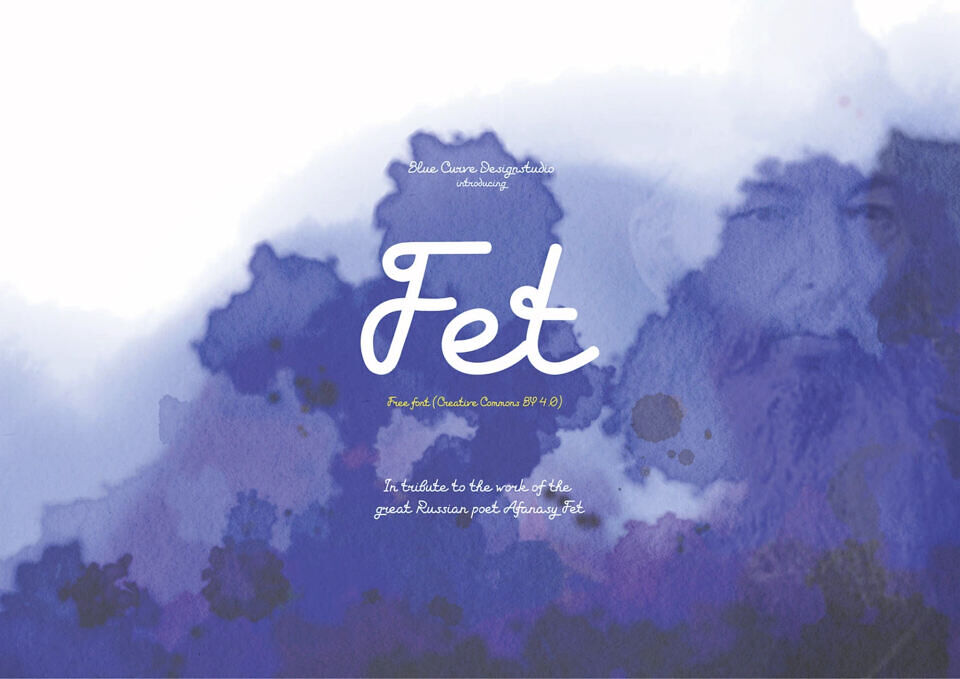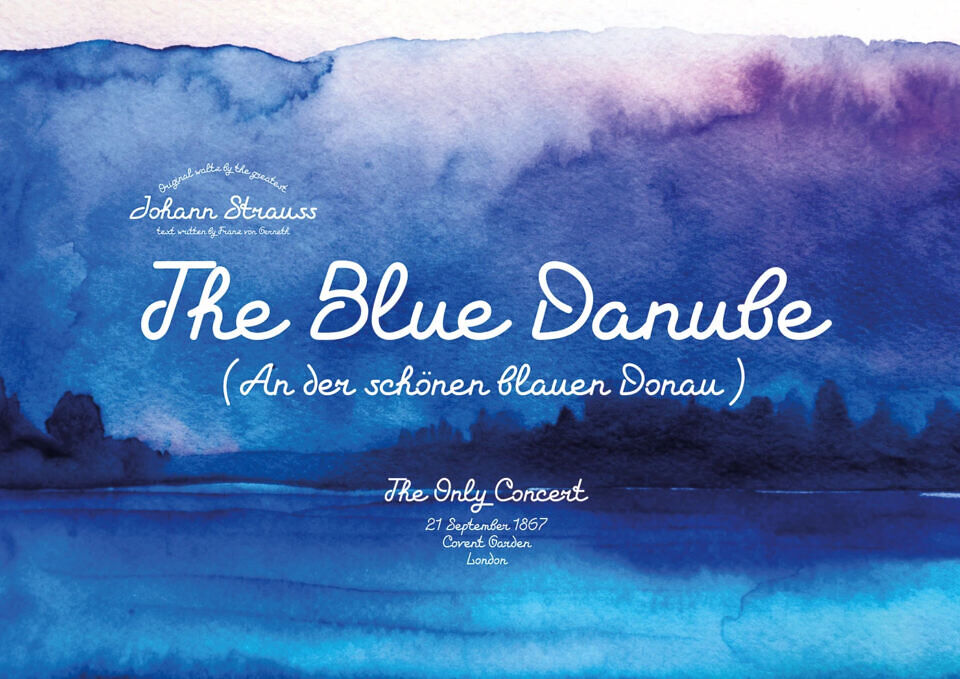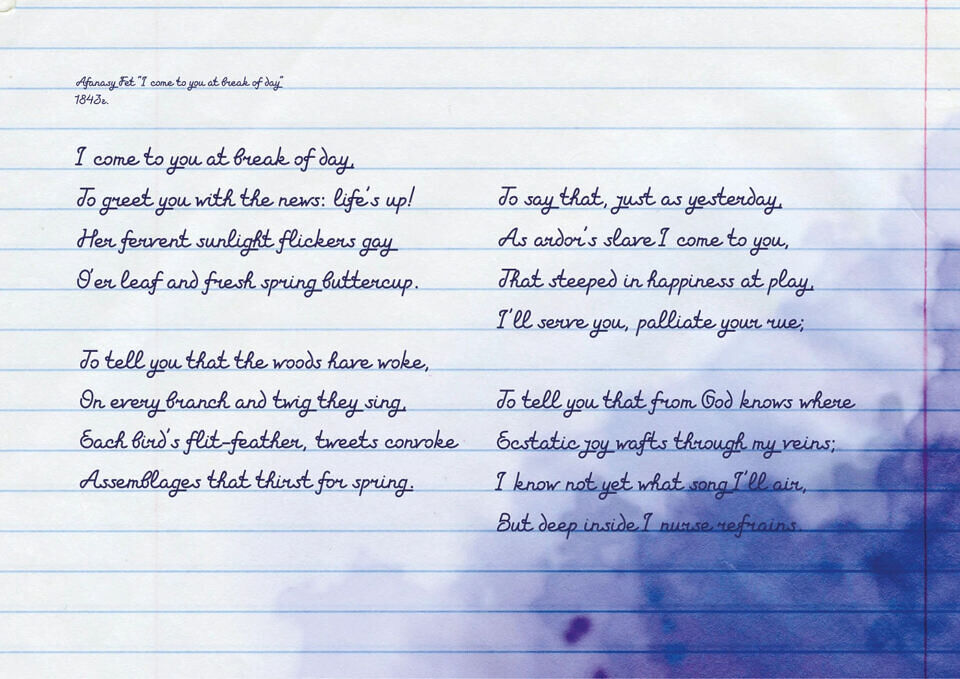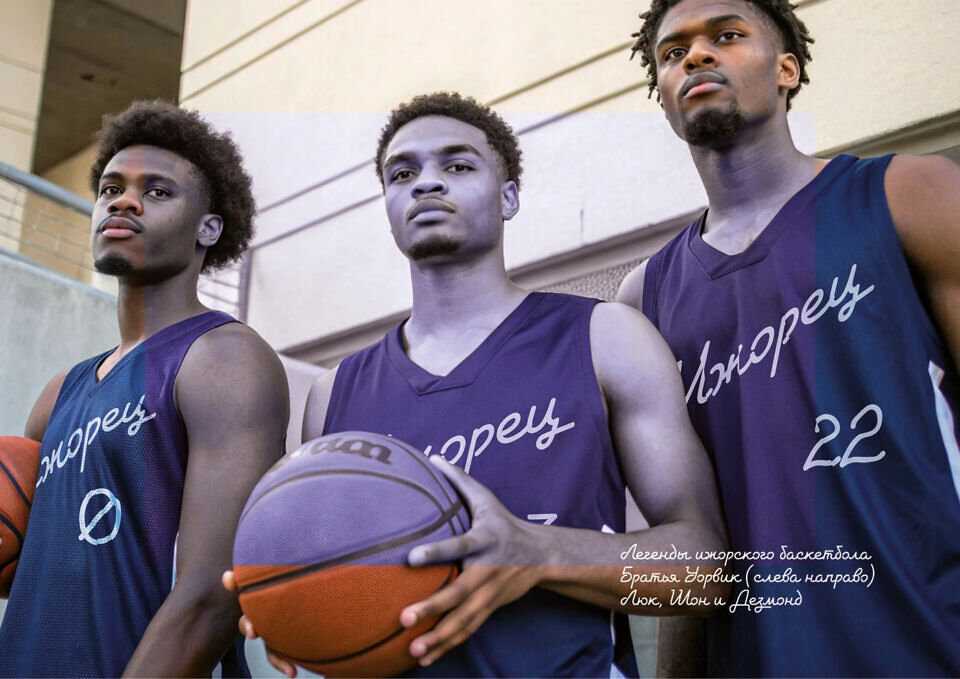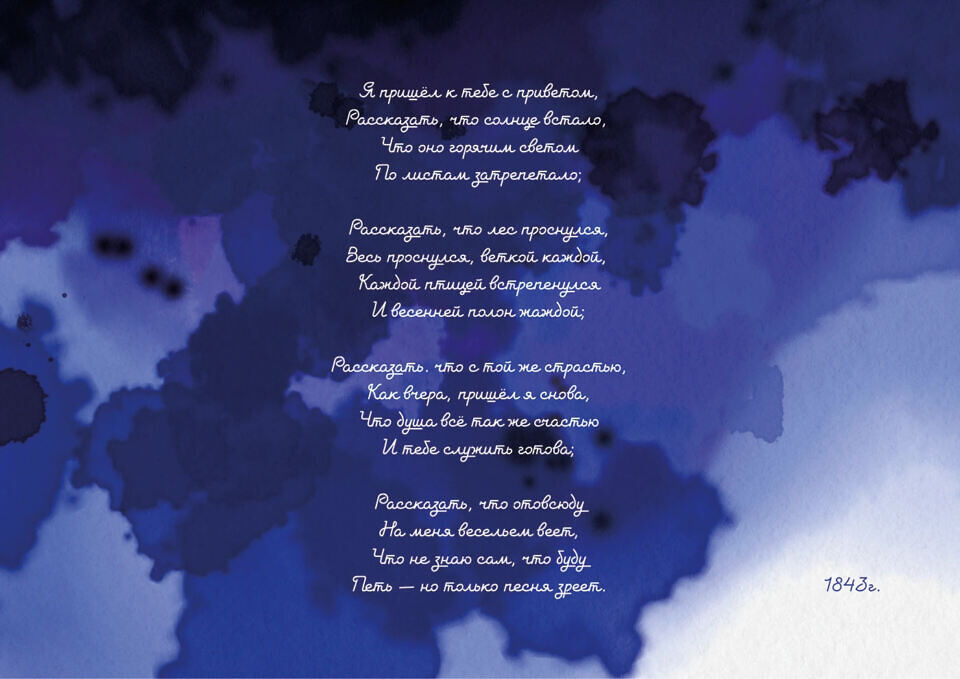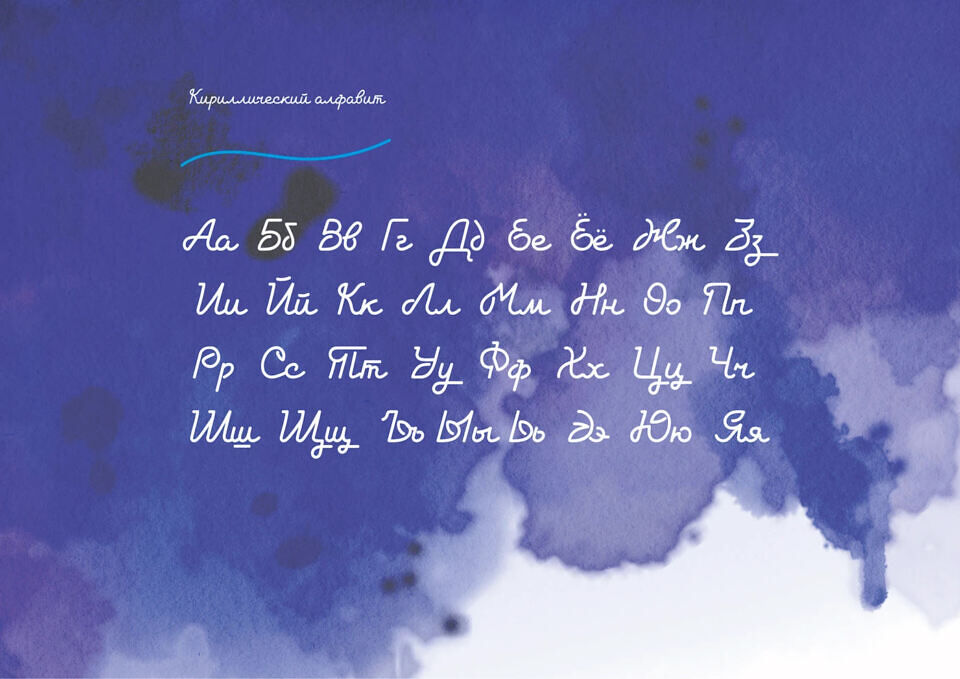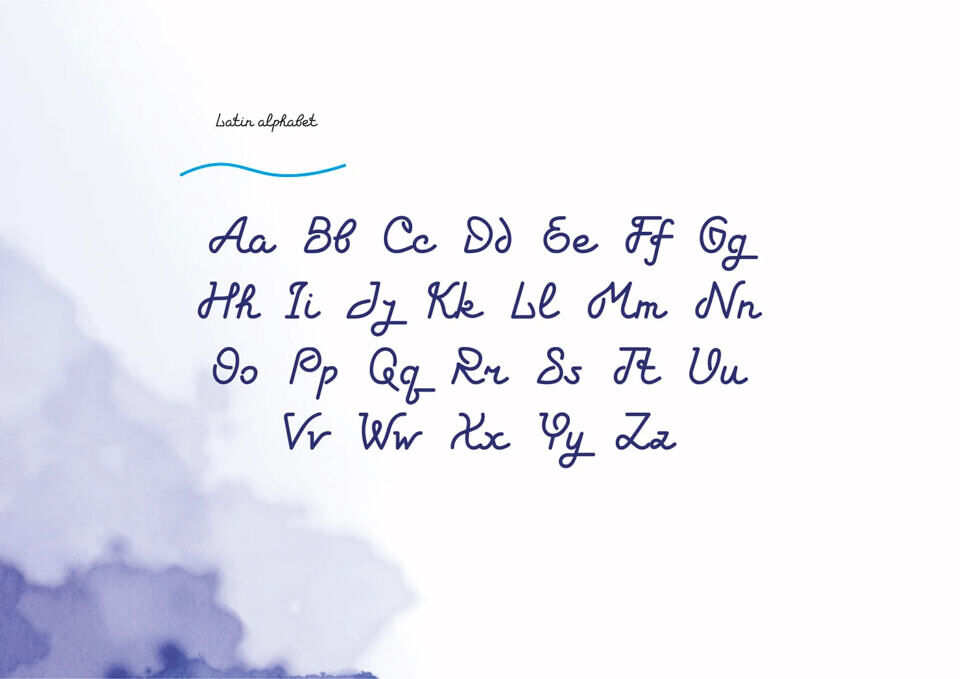
Fet Font is a graceful script typeface inspired by the charm of vintage handwriting and poetic calligraphy. Designed to evoke softness and nostalgia, it features fluid, slightly slanted letterforms with delicate loops and a natural, handwritten rhythm.
Supporting both Latin and Cyrillic alphabets, Fet is ideal for expressive titles, romantic poetry, music posters, and personal storytelling. Whether displayed on lined notebook backgrounds or elegant watercolor textures, it brings a handwritten warmth that feels both intimate and timeless.